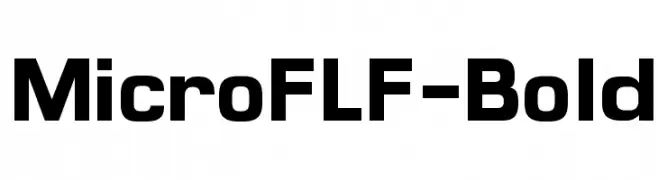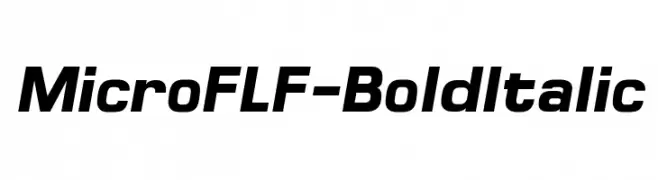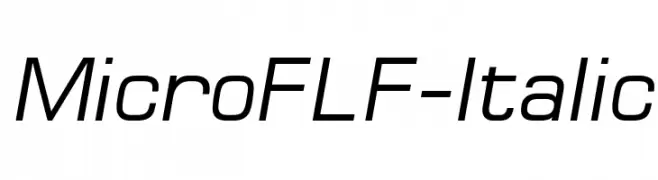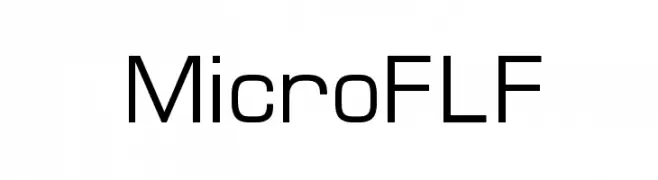
A modern, geometric sans-serif font with balanced proportions.
A bold, geometric font with strong, uniform strokes and modern appeal.
A bold and italicized font with a modern, dynamic style.
A sleek, modern italic font with uniform stroke width and dynamic style.